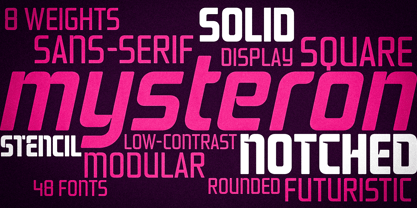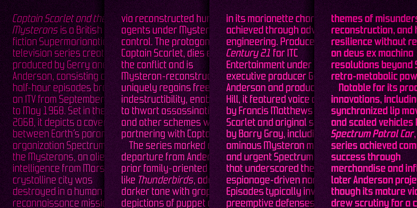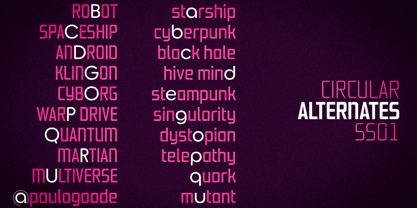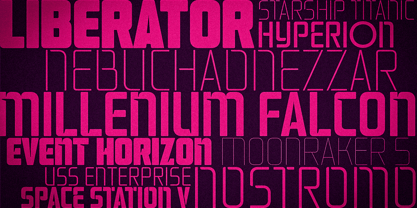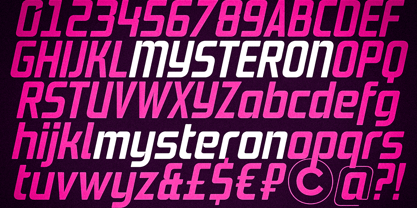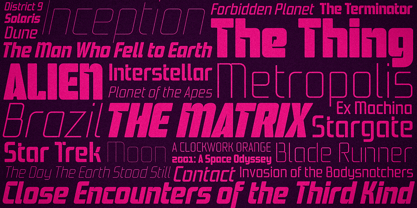
Mysteron
by Paulo Goode
The Mysteron Font Family was designed by Paulo Goode and published by Paulo Goode. Mysteron contains 48 styles and family package options.
Mysteron is a futuristic modular typeface that has been specifically designed for branding and titling purposes. Its construction conforms to a grid* with many repeating forms. This rigidity evokes an aura of advanced technology and futurism that would be perfect for your next sci-fi book cover, film title, hi-tech branding project and so on. Mysteron takes its name from a fictional martian race from the 1960s sci-fi series Captain Scarlet and the Mysterons. The Mysterons appear in the episodes as disembodied voices and green rings of light. With that in mind, I felt it would be fun to offer perfectly rounded alternates that break the rigid grid format for appropriate glyphs. These can offer a nice contrast in logotype or titles when used subtly. They are accessible by activating Stylistic Set 1. Mysteron is a family of 48 fonts across three styles – Solid, Stencil, and Notched – in both roman and italic. These distinctive fonts should be used at large sizes, making them perfect for use in your headlines, signage, logotype, titles, and branding designs. Mysteron has a character set that covers all Latin European languages and includes old style figures, fractions, along with superior and inferior figures. *Optical adjustments have been made along the way to maximise legibility.
Mysteron